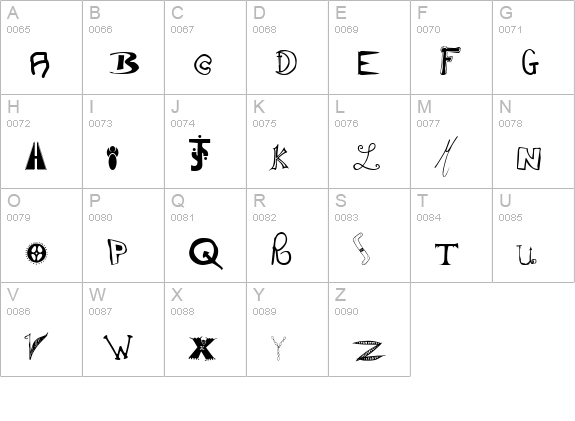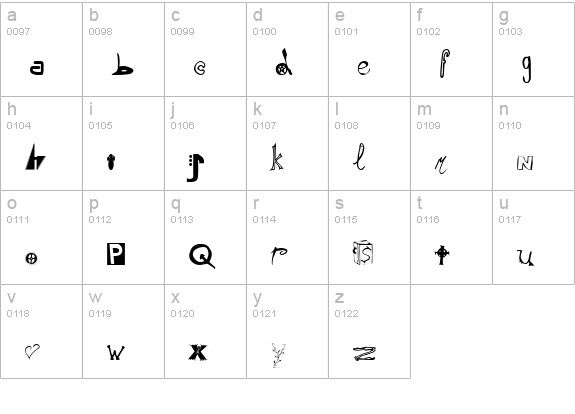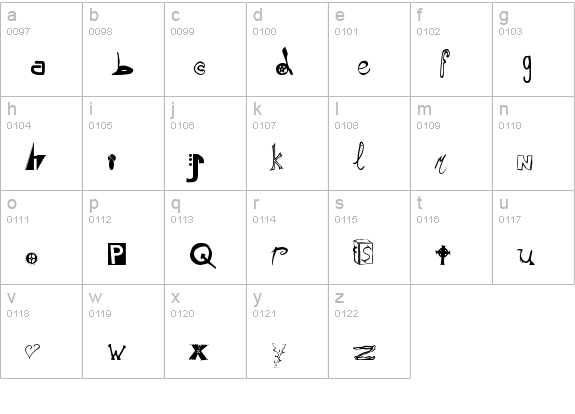
Introducing Instant Soup Mix font, a delightful and versatile typeface that will add a dash of flavor to your design projects. This unique and playful font is perfect for adding a touch of whimsy to any creative endeavor. Whether you're designing a menu for a trendy café, creating eye-catching signage for a food festival, or crafting a fun and vibrant invitation, Instant Soup Mix font is sure to make a bold statement. What makes Instant Soup Mix font truly special is that it is not only visually captivating but also freely available for download. Yes, you heard that right – this amazing font can be yours completely free of charge! Thanks to the generous folks at FontsMarket.com, you can easily access and download Instant Soup Mix font without breaking the bank. This means that you can use this delectable font to enhance your designs without worrying about any additional costs. With its attention-grabbing letterforms and charming character variations, Instant Soup Mix font will instantly elevate the appeal of any project it graces. Its playful curves and bold strokes bring a sense of energy and excitement to your designs, making them stand out from the crowd. Whether you're creating eye-catching headlines, stylish logos, or captivating social media graphics, Instant Soup Mix font will infuse your work with a delightful and appetizing aesthetic. So why wait? Head over to FontsMarket.com and indulge in the scrumptiousness of Instant Soup Mix font. Download it today and unleash your creativity with this freely available gem. Whether you're a seasoned designer or just starting out, Instant Soup Mix font is the perfect ingredient to spice up your design projects and leave a lasting impression on your audience. Don't miss out on this fantastic opportunity – get your hands on Instant Soup Mix font now and let your imagination run wild!